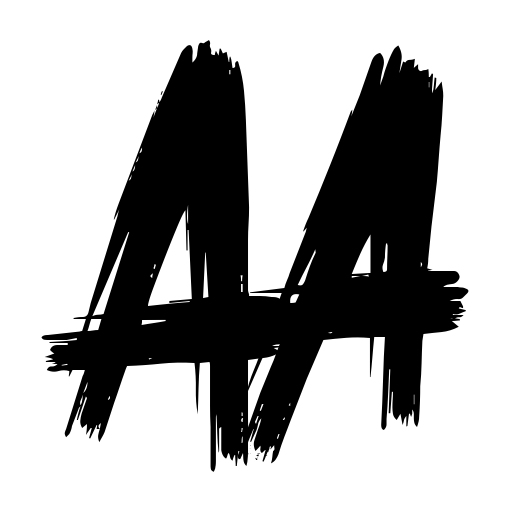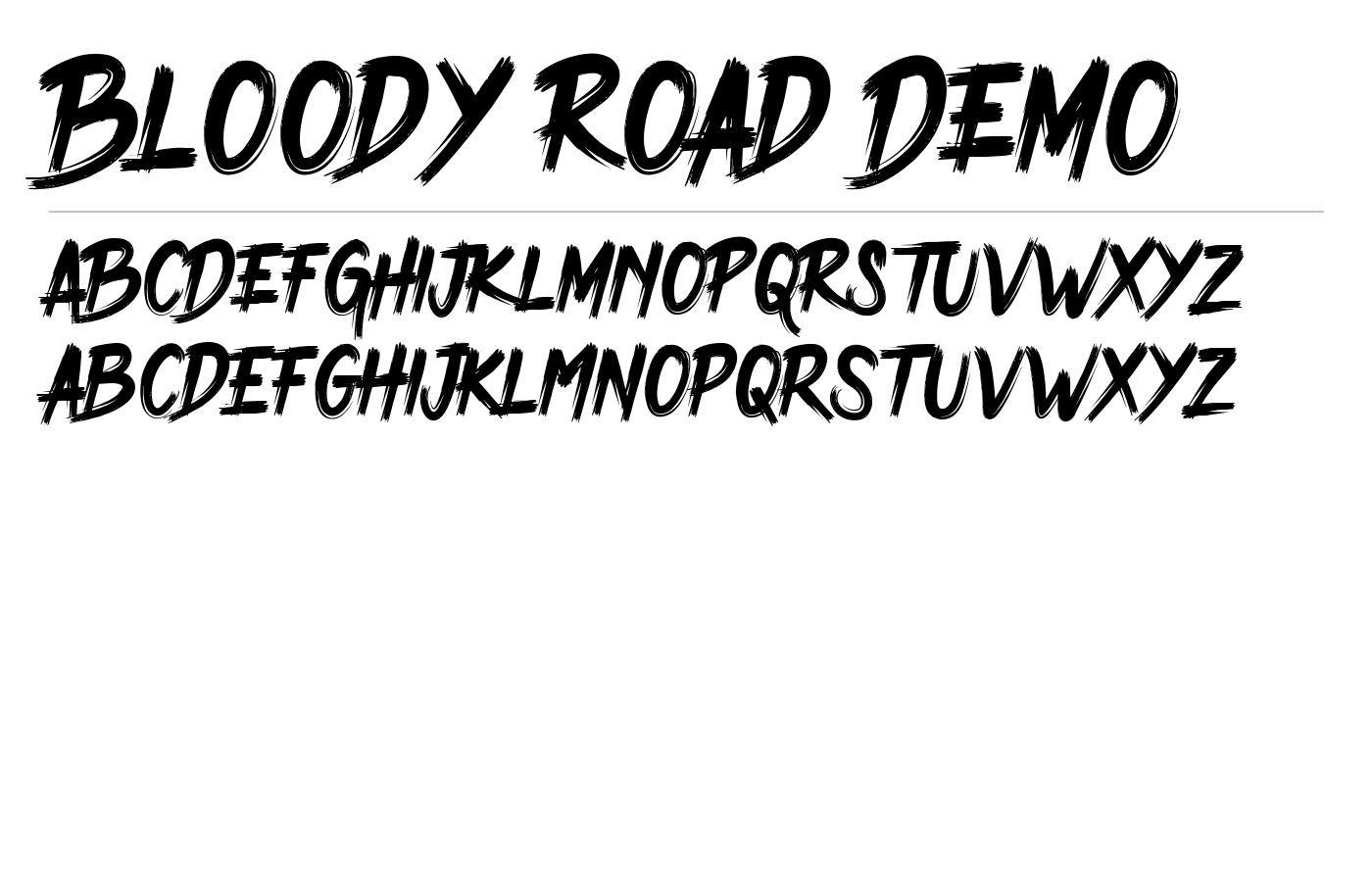
Bloody Road DEMO is a bold, expressive brush script font with a rough, textured style that gives it a dynamic and edgy feel. Its irregular strokes and sharp edges convey a sense of raw energy and urgency, making it perfect for designs that want to evoke excitement, rebellion, or a hand-crafted vibe. This font works well in posters, logos, and branding projects that need a striking and intense visual impact.
Bloody Road DEMO Font
About Bloody Road DEMO Font